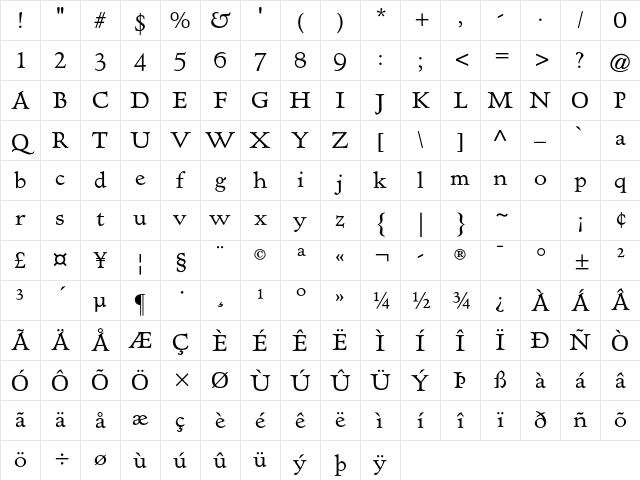
Complete Hadriano Std Light glyph index. Displaying only characters natively supported by Hadriano Std Light font.
Hadriano Std is a composed and adaptable typeface that performs quietly and consistently across a wide range of design contexts. Its slender proportions lend an understated elegance to any composition.